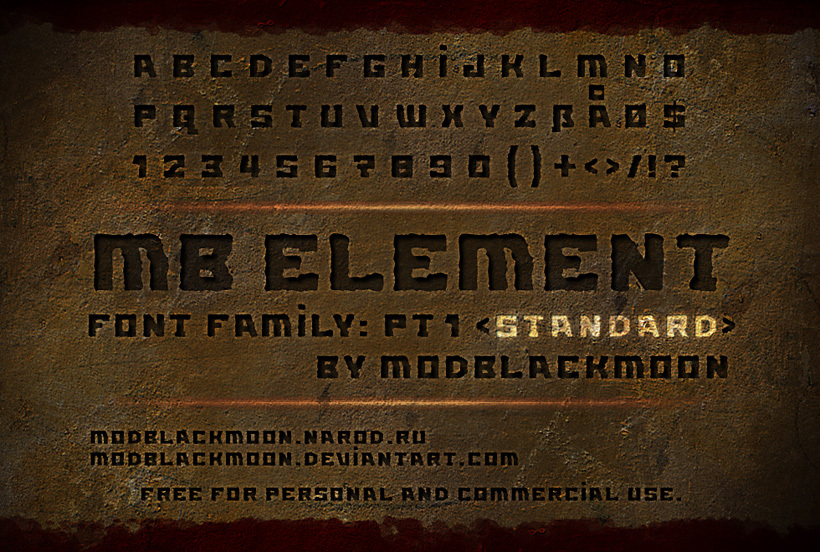
MB-Element by ModBlackmoon is a free distorted display font with broad, dark letters and an aggressively cut silhouette. Deep notches, blunt corners, and uneven edges resemble damaged signage. The rough treatment varies from letter to letter.
Its chipped contours echo distressed photography and industrial textures, making it useful for music posters, game graphics, and streetwear packaging. It suits designers working in punk and action entertainment.
This is the first part of the MB-Element set.